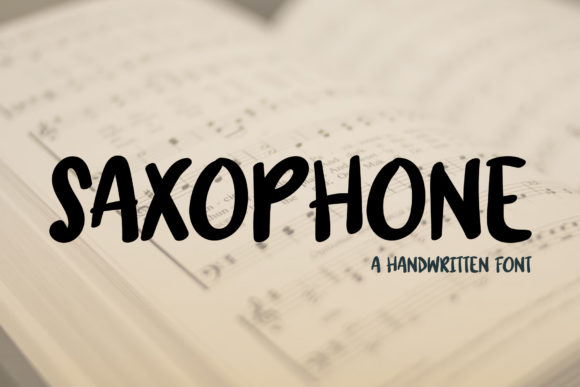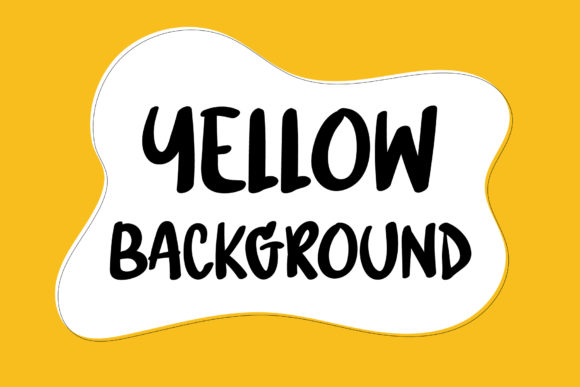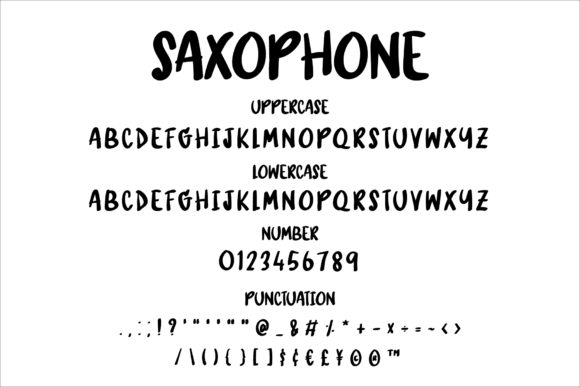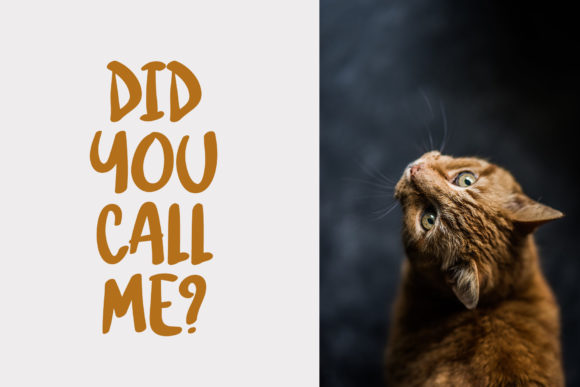
About Saxophone Font
Saxophone is a simple and friendly handwritten font. It embodies playfulness and authenticity and is the perfect choice for any children activity or school project. Add this beautiful font to your designs and notice how it makes them come alive!